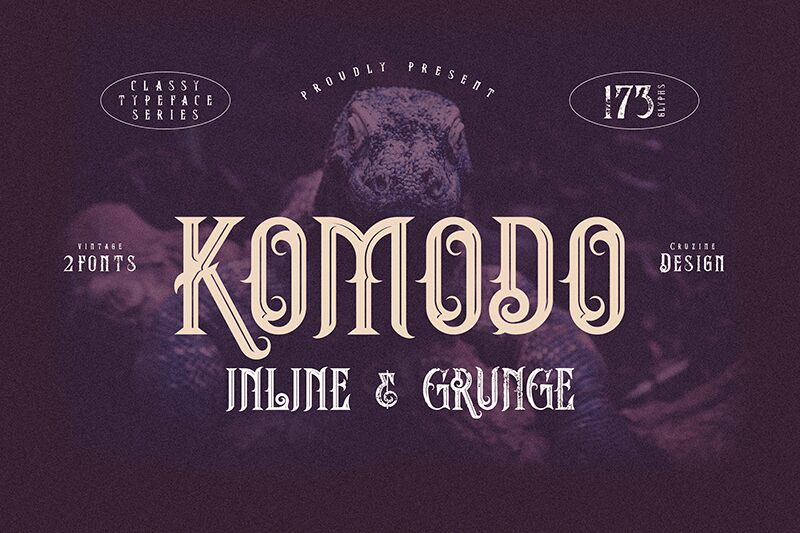
The Komodo Inline Grunge font from Cruzine is a display typeface that adds a vintage touch to your designs. With its retro eroded style, this semi-light font is perfect for bringing an edgy yet classic feel to posters, album covers, and website headers. The condensed width of the font makes it ideal for fitting large amounts of text into small spaces without sacrificing legibility. Whether you're creating a grungy logo or giving your marketing materials a unique twist, Komodo Inline Grunge is the perfect choice for any project that calls for an eye-catching display font.